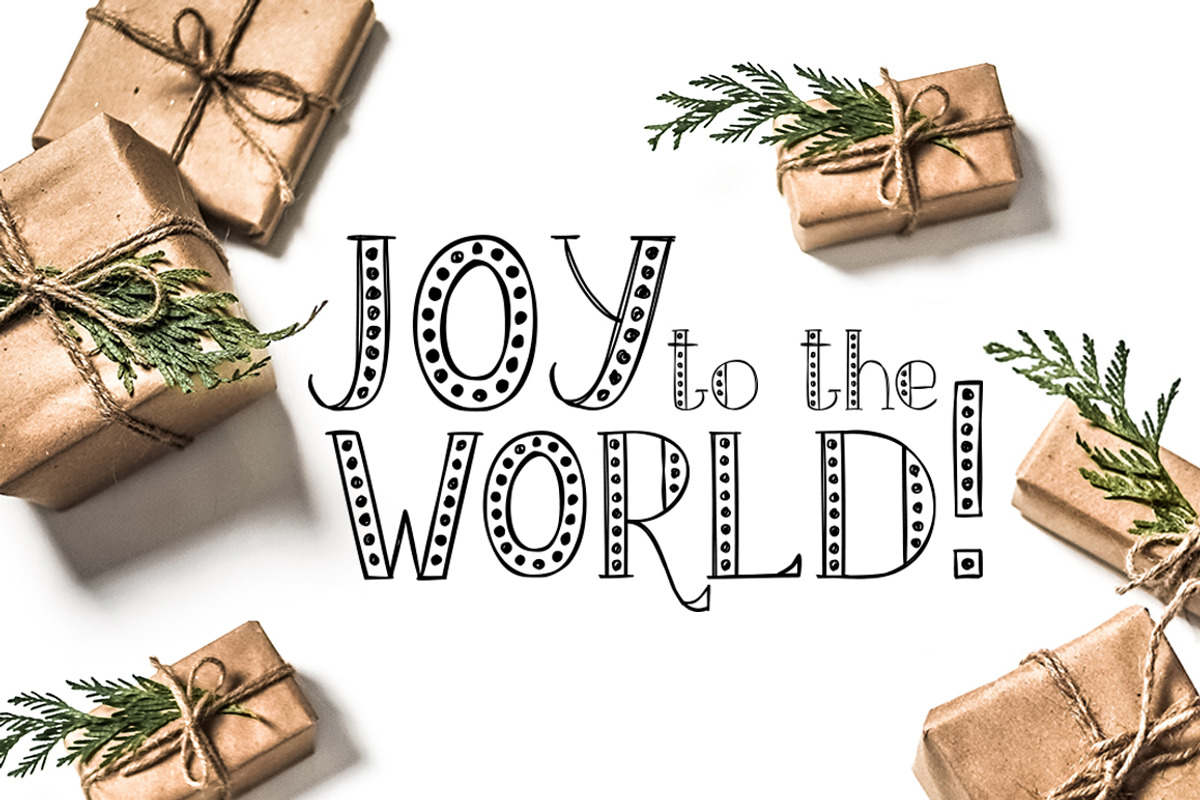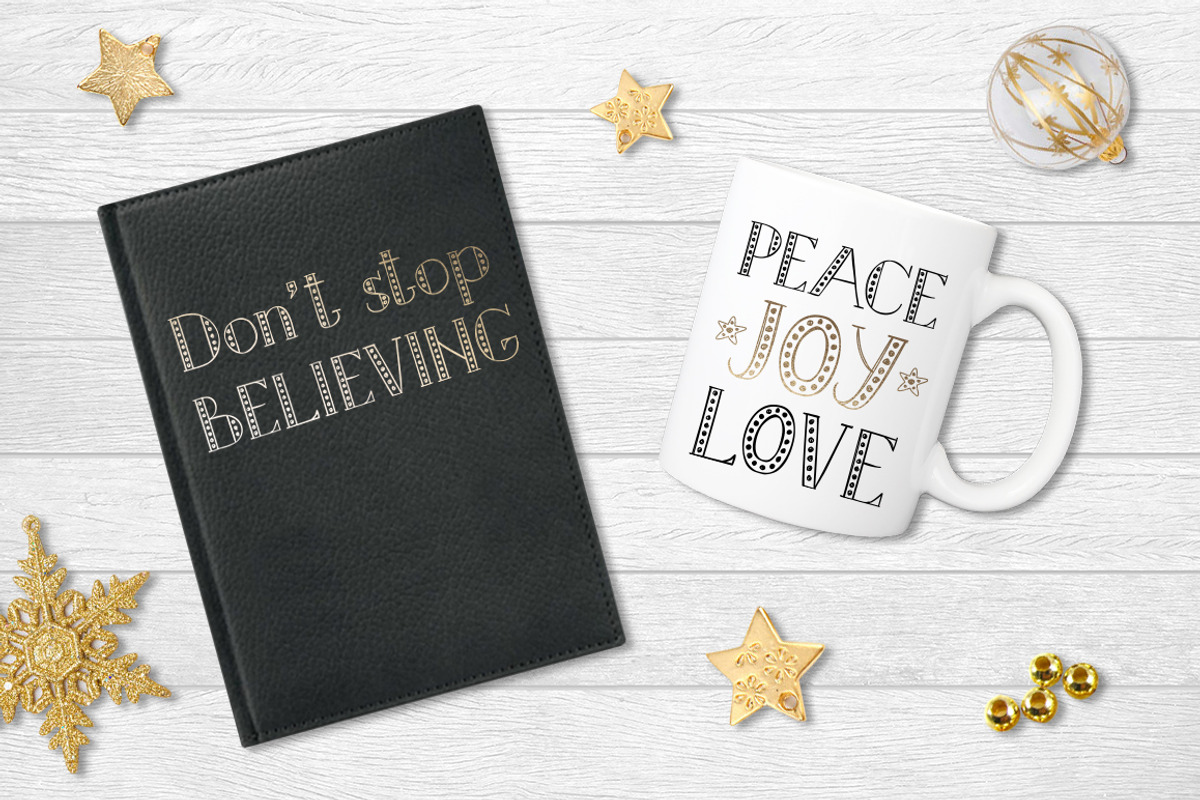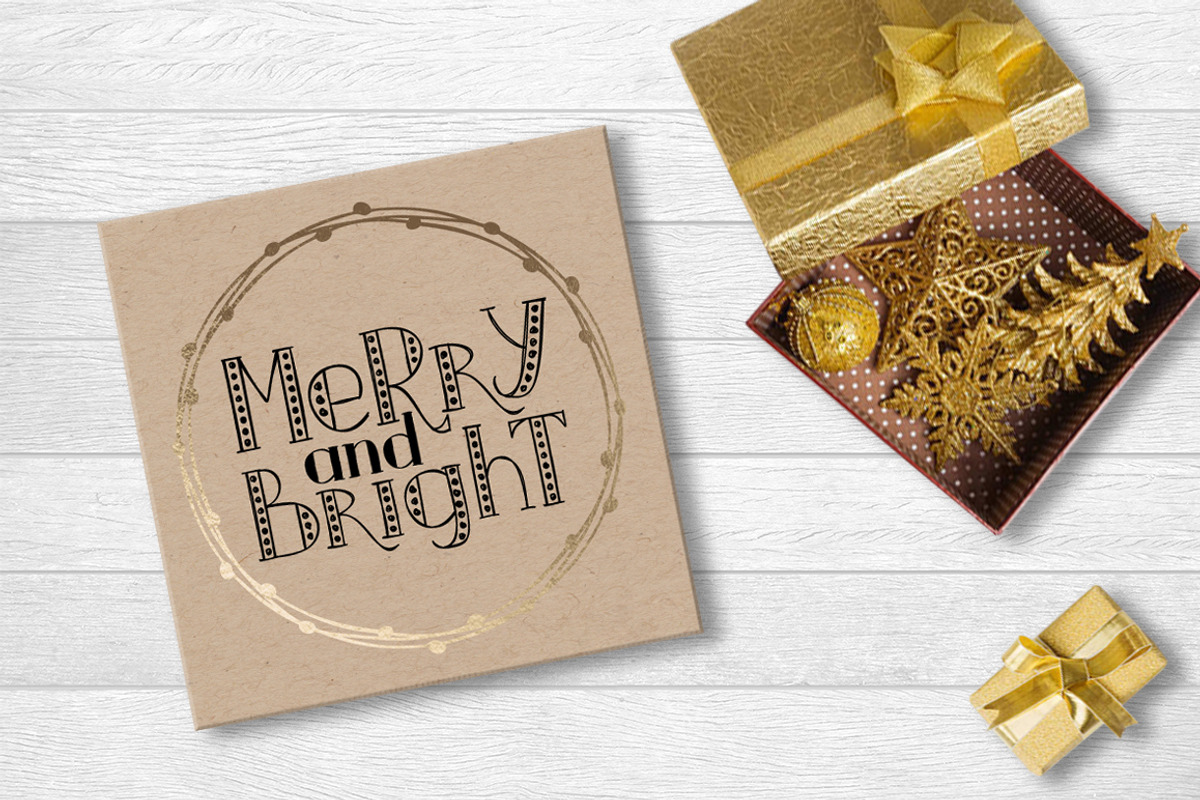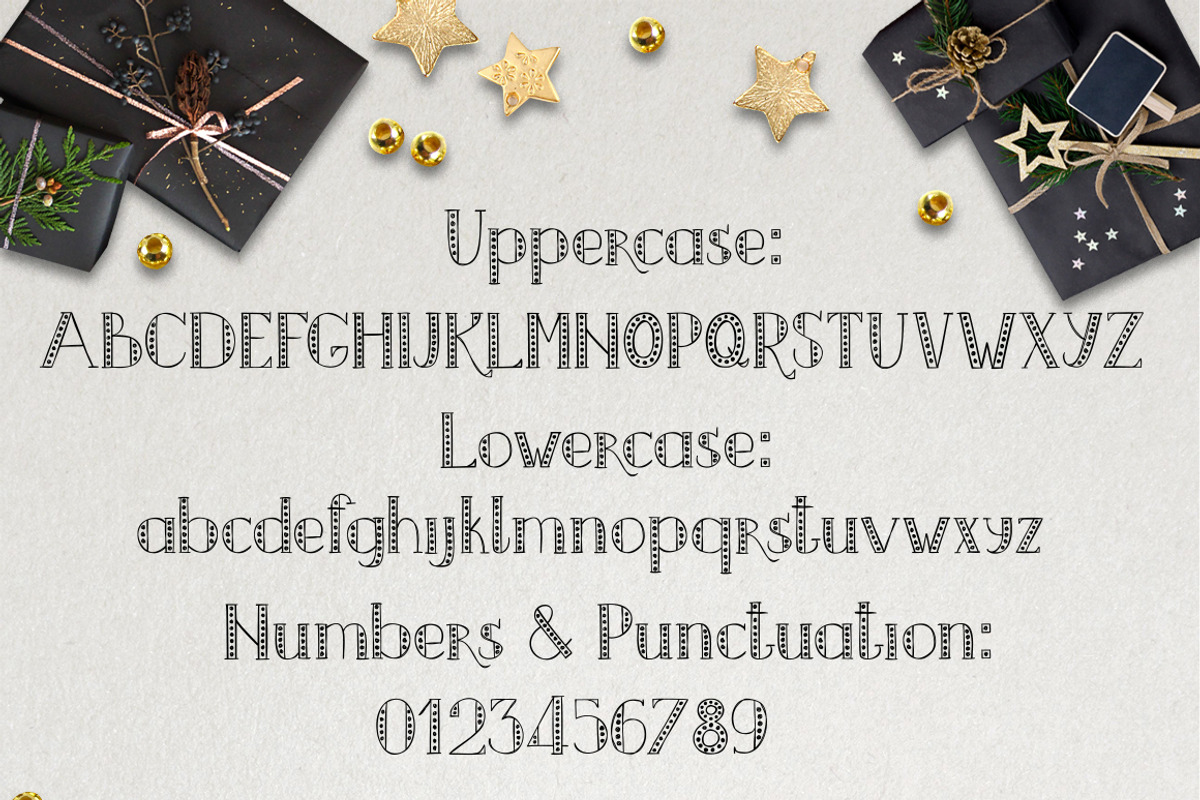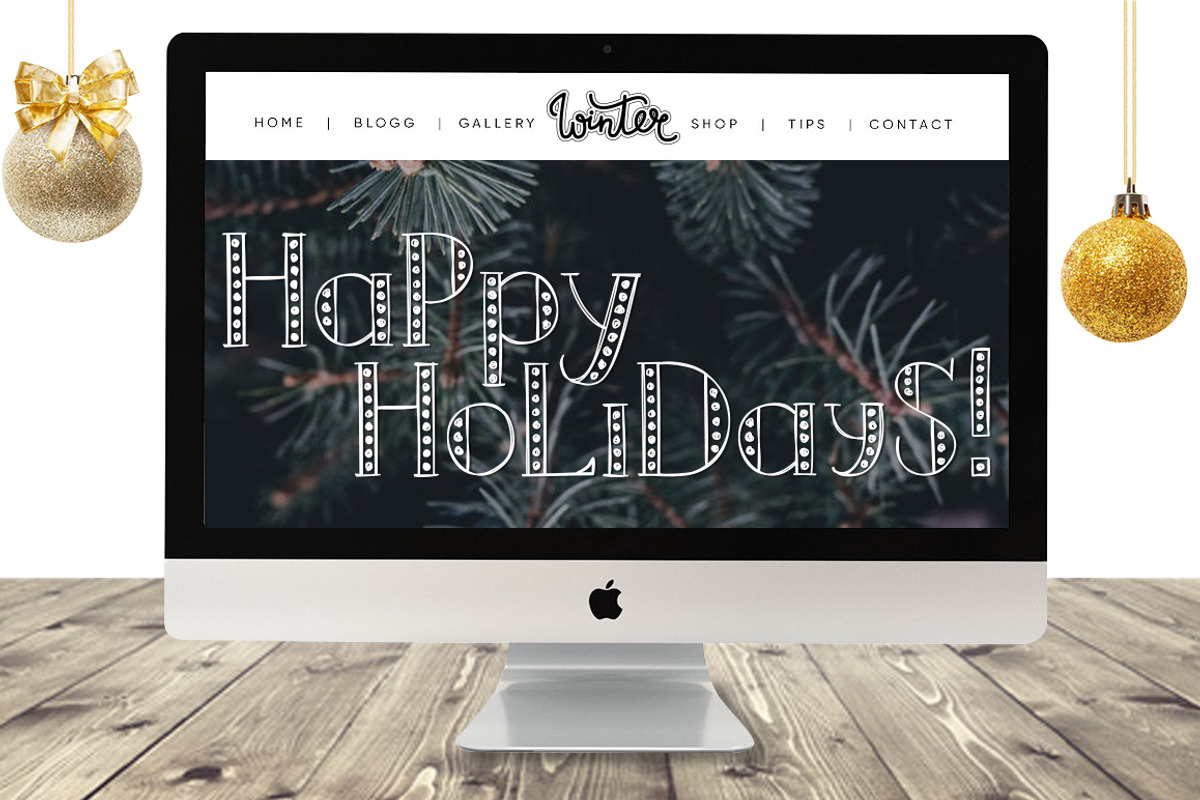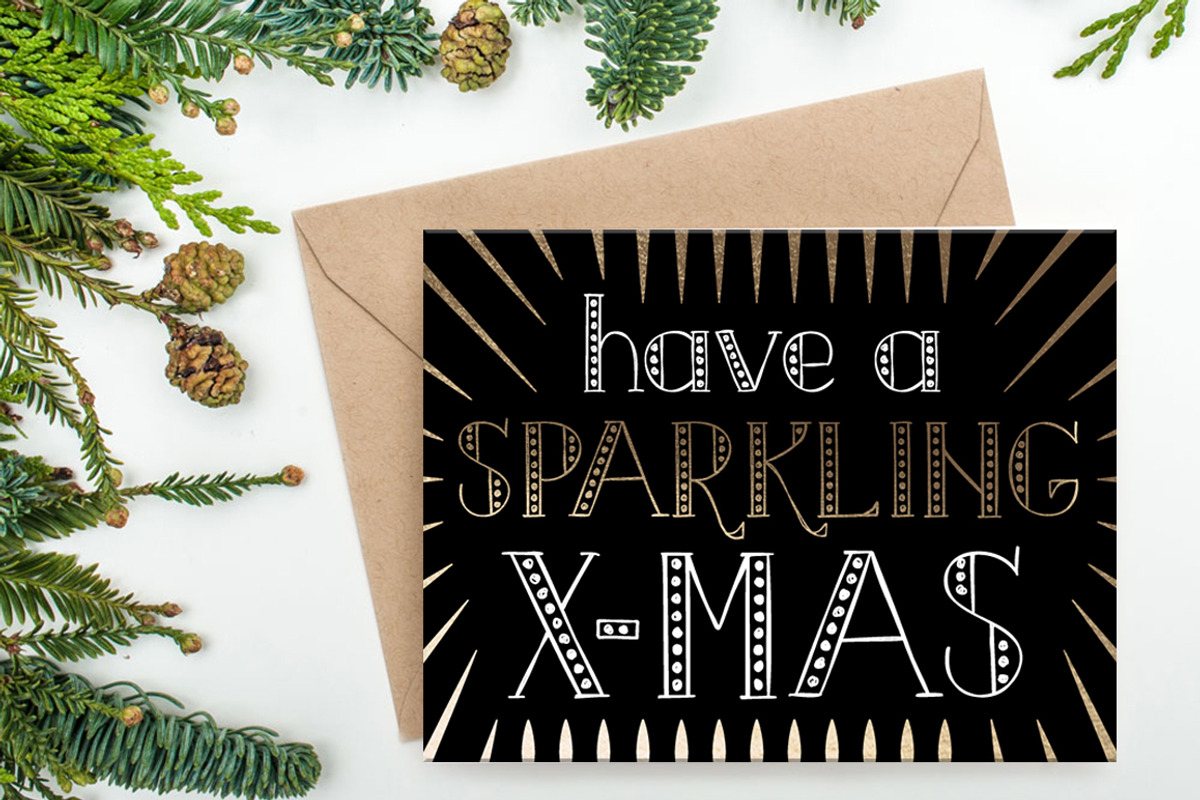
MERRY LIGHTS - Christmas font
Here comes my new very merry TrueType Christmas font – MERRY LIGHTS! This font is fully hand-drawn that makes it look cute and cozy! Small circle dots in the letters make it “shine” with the lights.
Add some Christmas and Party mood to your artworks with Merry Lights Font!
It contains capital, lowercase letters, numbers and most characters from your keyboard. This font will be perfect for modern products design, logos, t-shirt prints, postcards and so on.
Also you can use the letters as separate objects to make cool combinations for cards and photos decor. Look through the previews to see the examples!